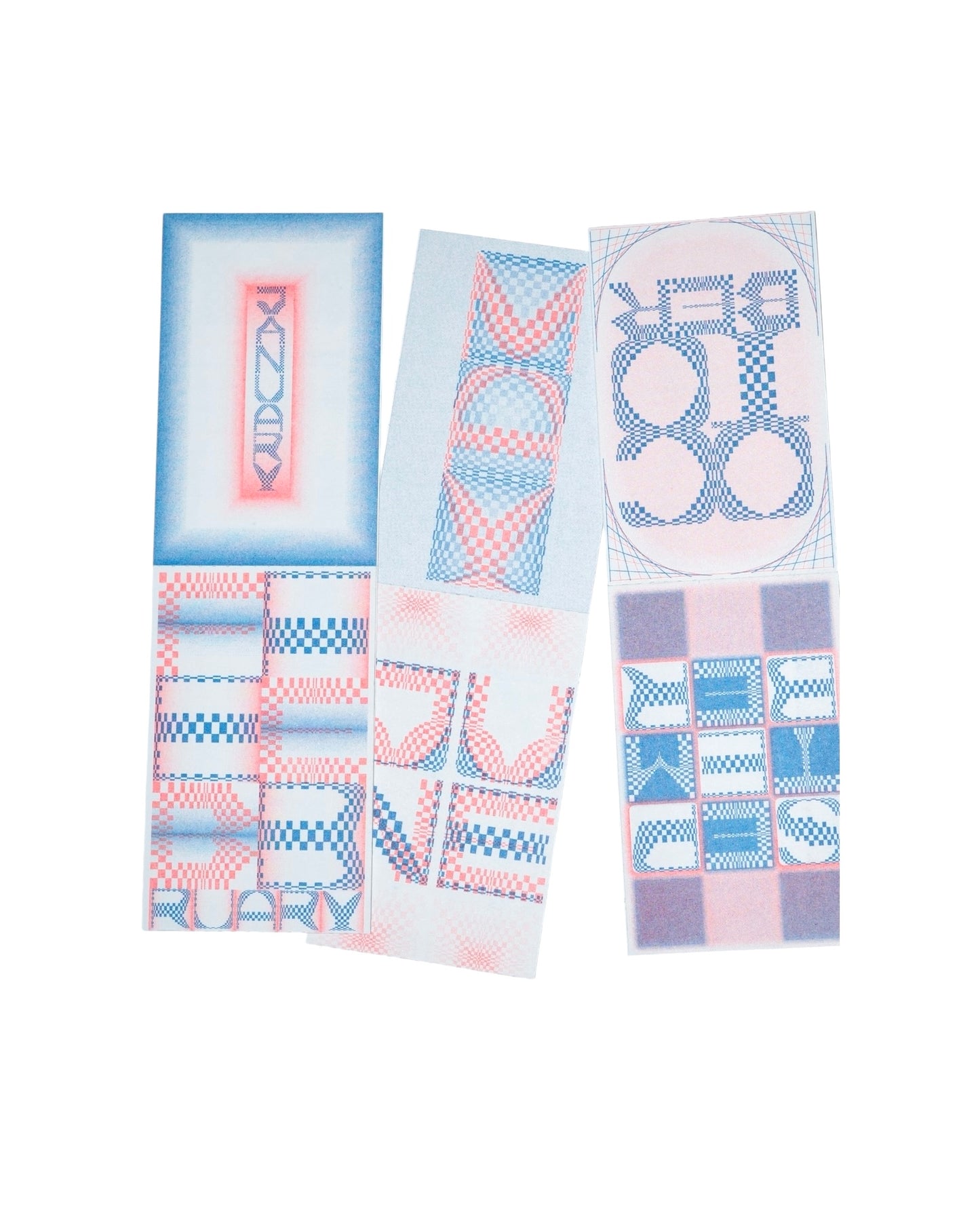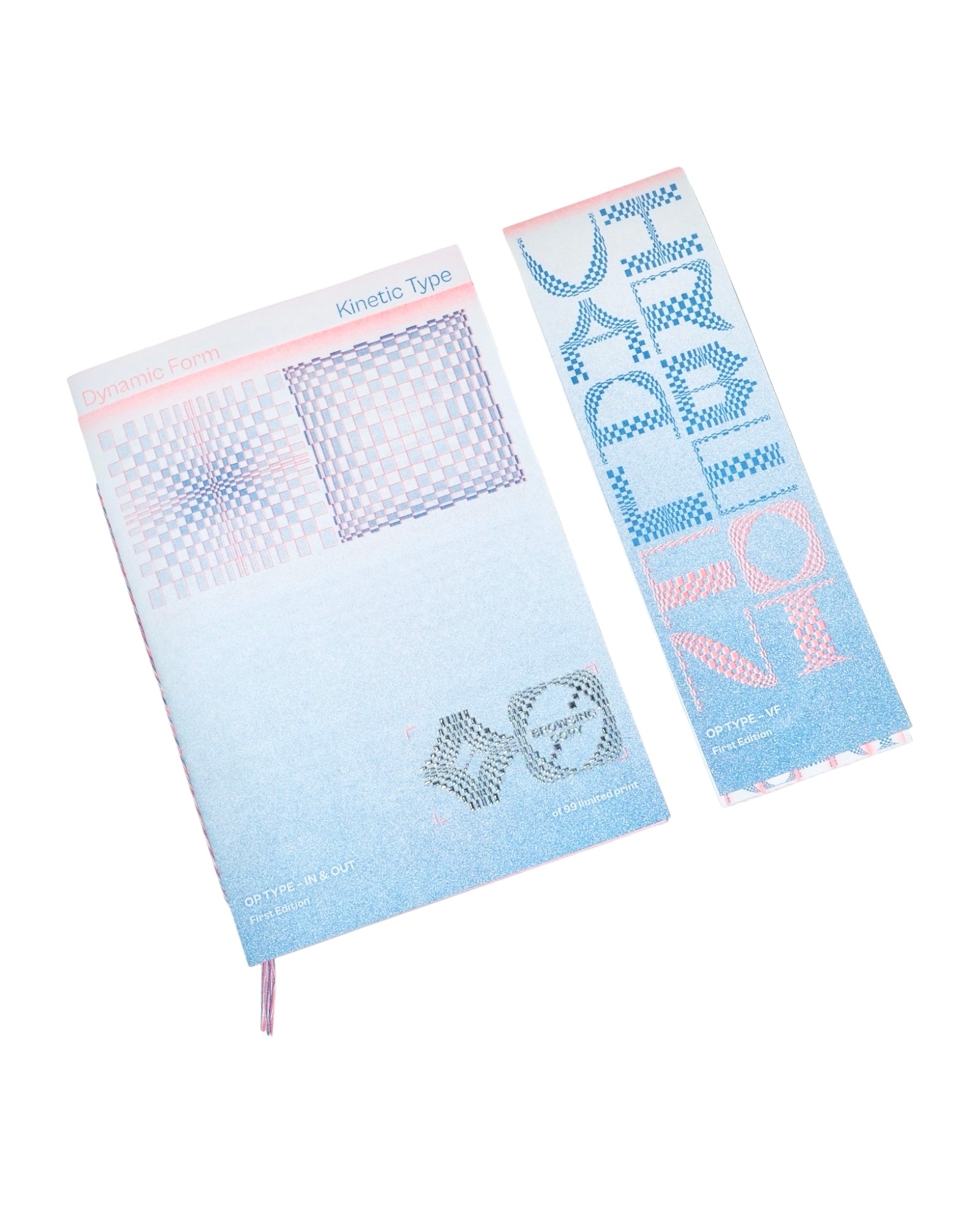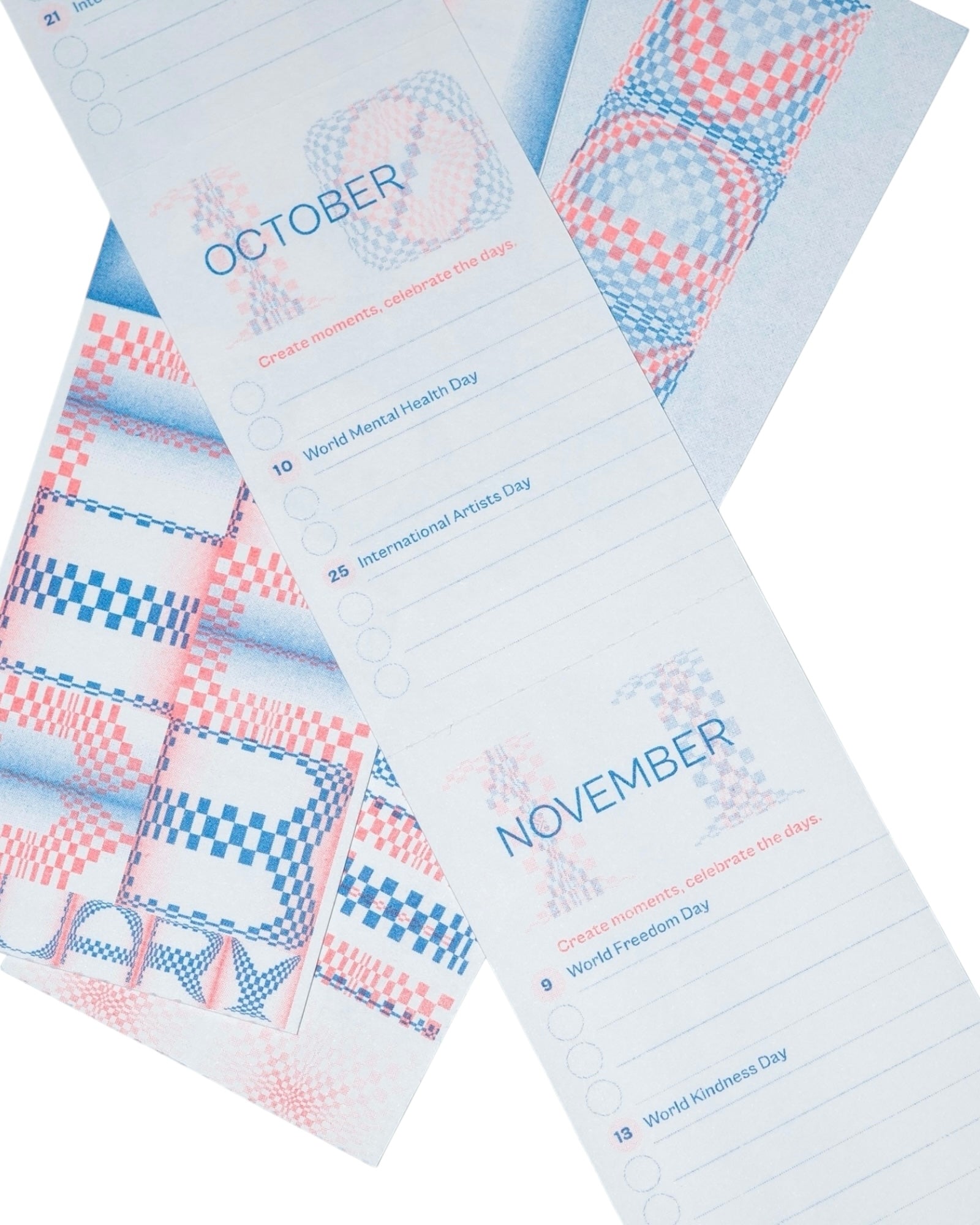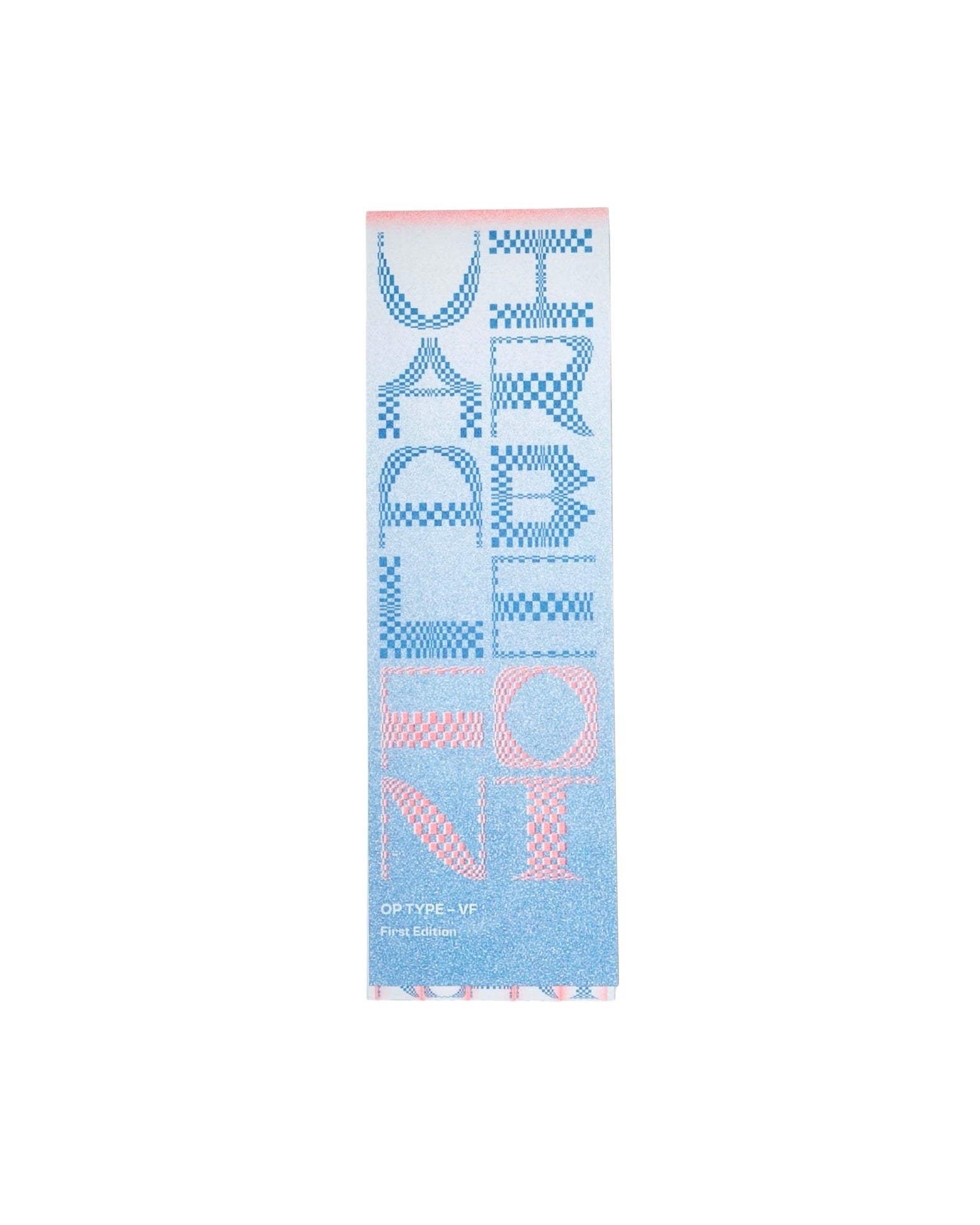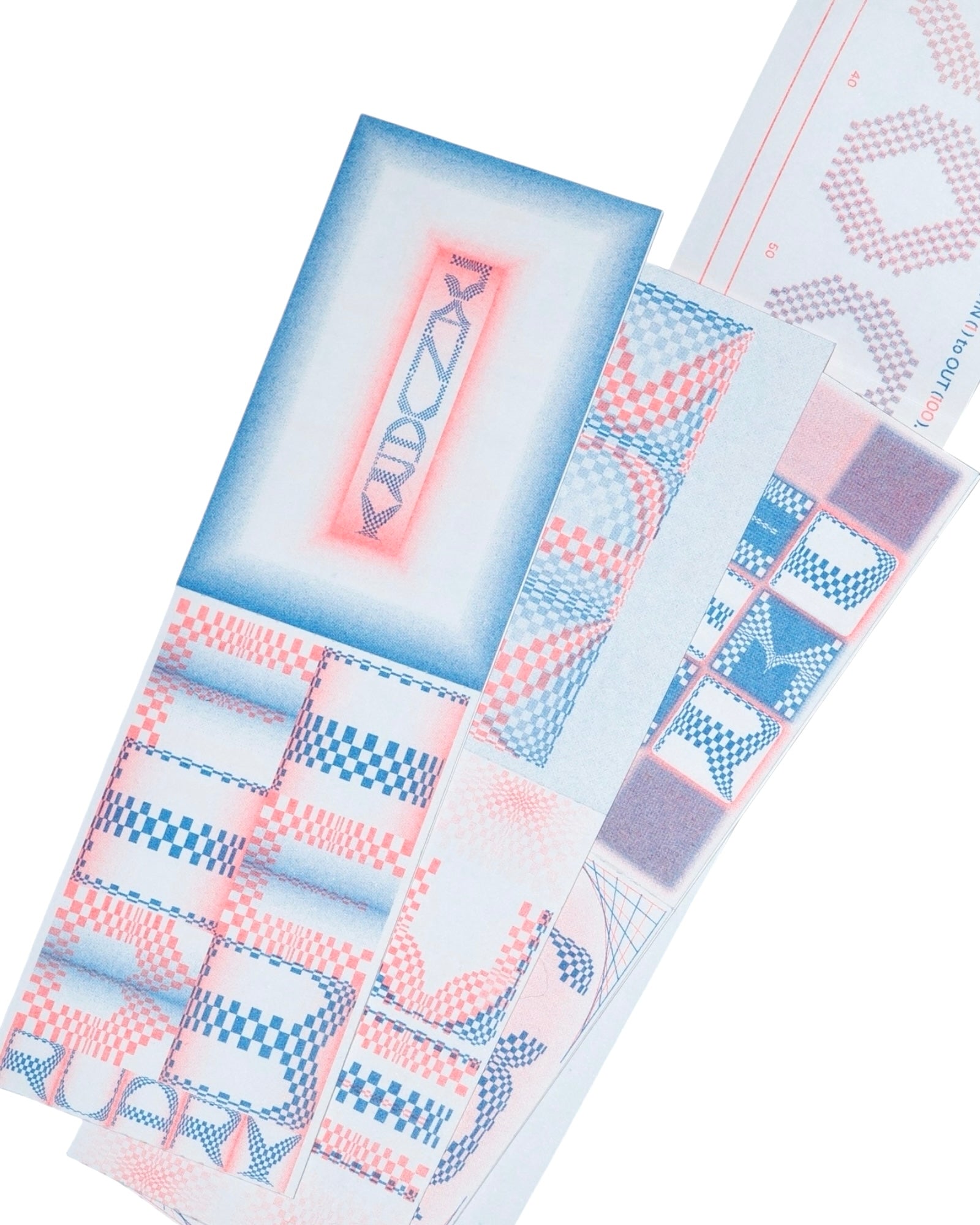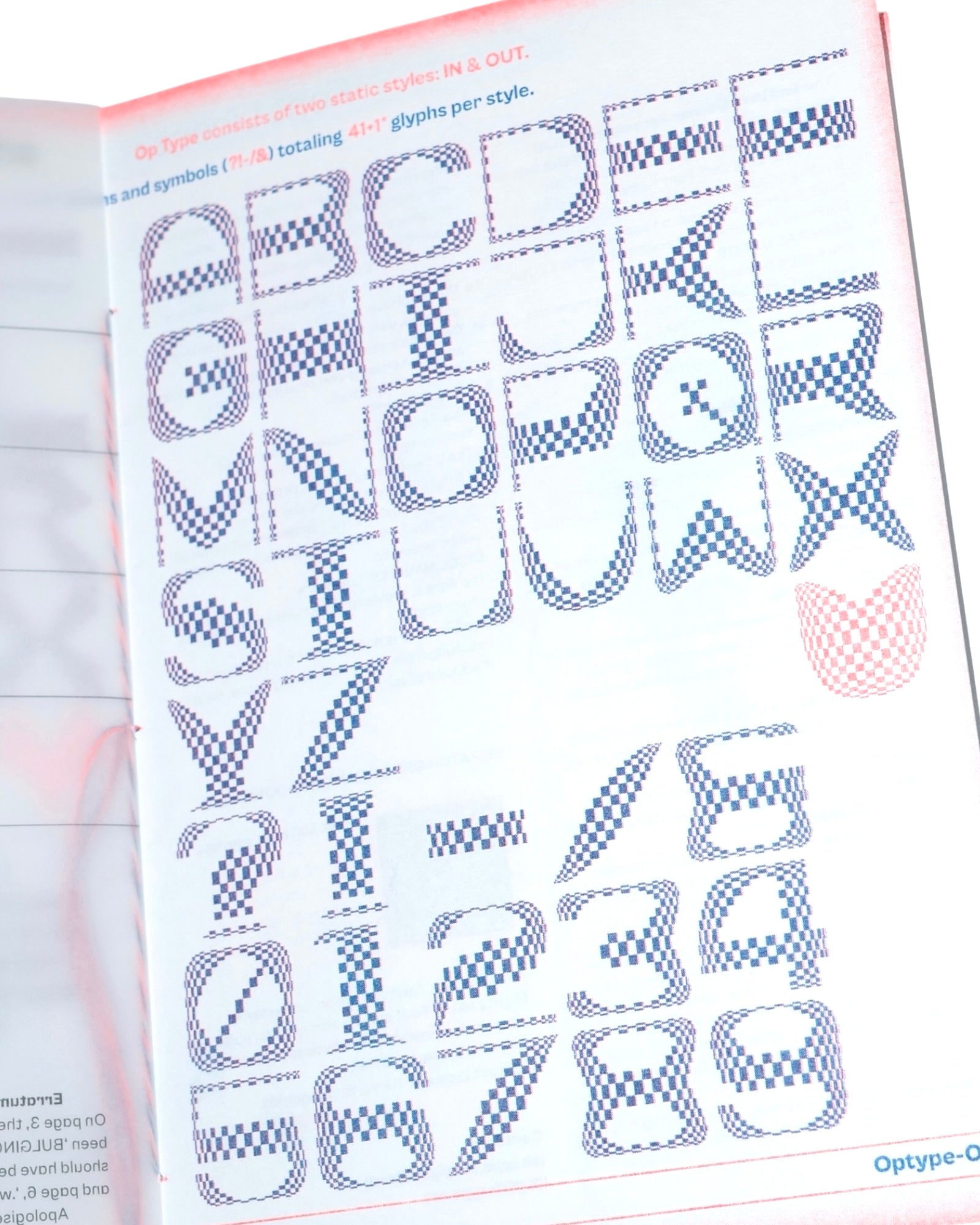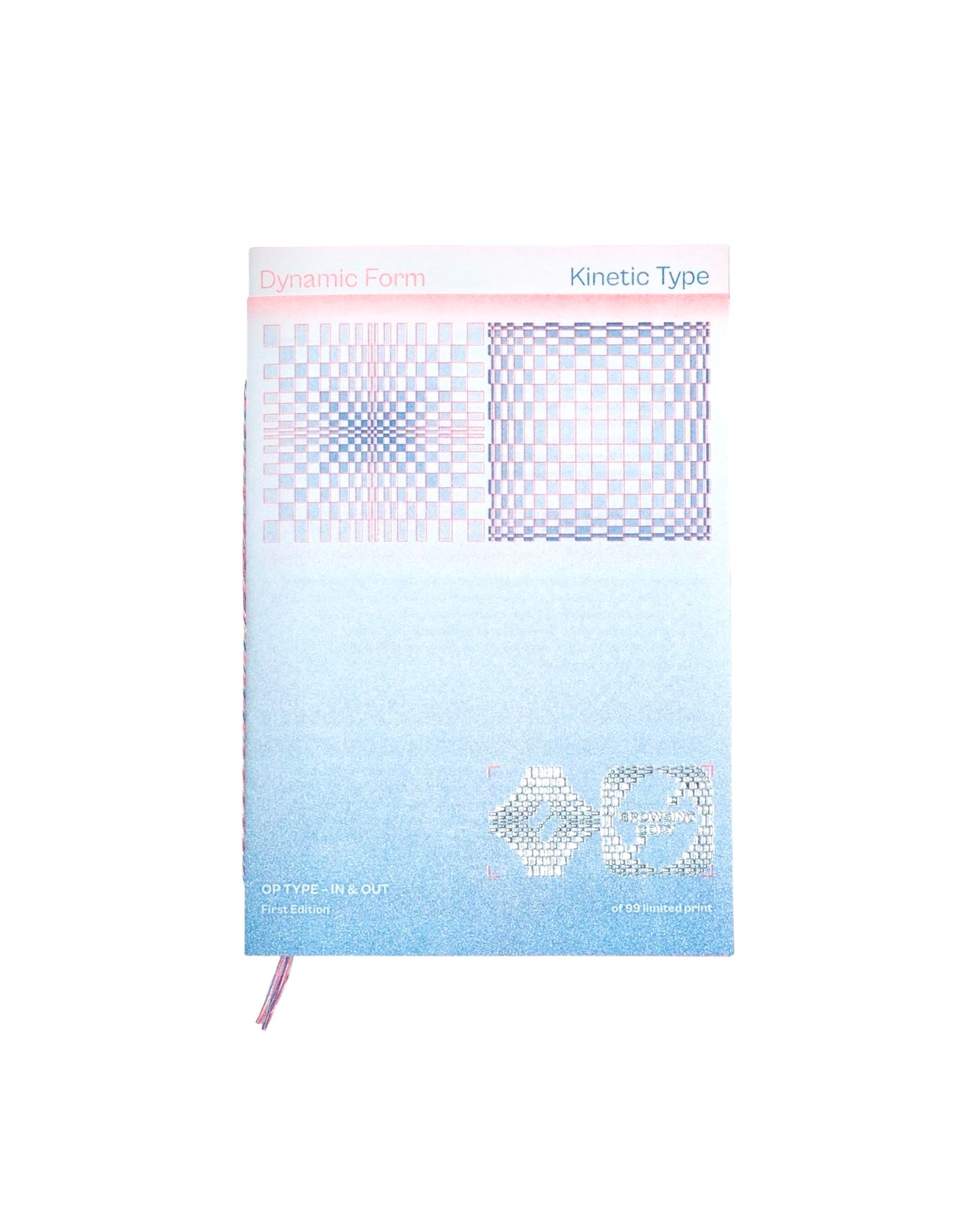
Op Type reimagines Op Art in typography, transforming letterforms into optical illusions through grid-based design. As an experimental typeface, it plays with perception, revealing shifting visuals through positive and negative space. With its Variable Font feature, it invites creative exploration in word-shaping and image-forming.
Also included is a set of cards showcasing the font’s application, which doubles as a monthly memo bookmark.